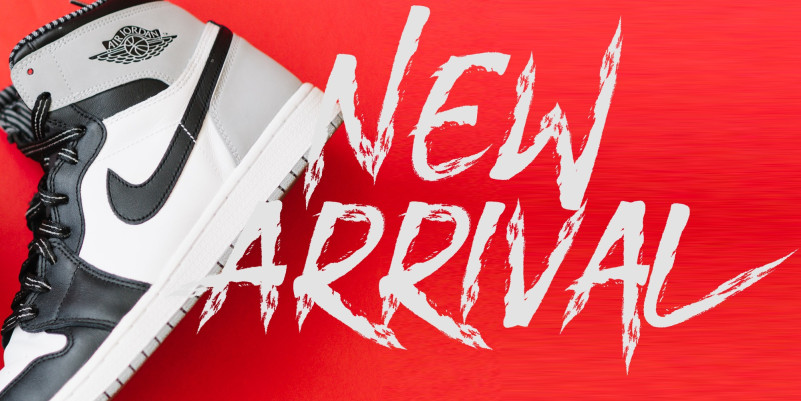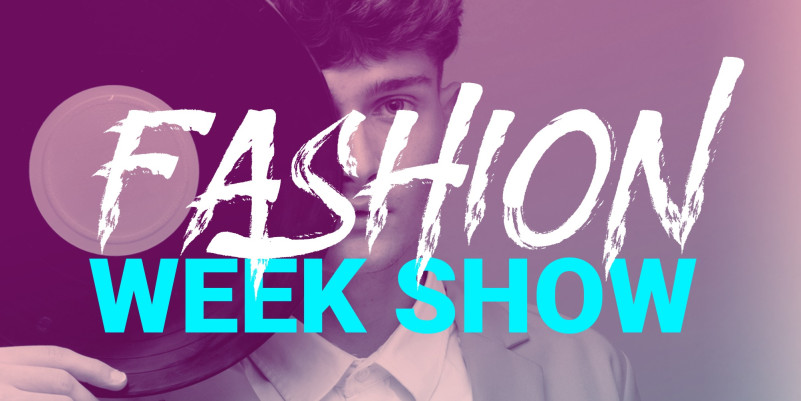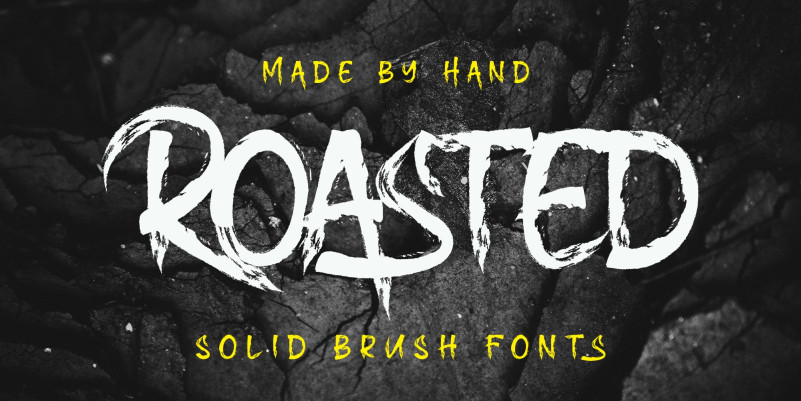
Roasted Font
Roasted Font, new hand brush font. Roasted is truly hand made by 100%.
This fonts have a Stylistic Set. You can access the Stylistic Set with lowercase too. Still have a good readibility and strong font.